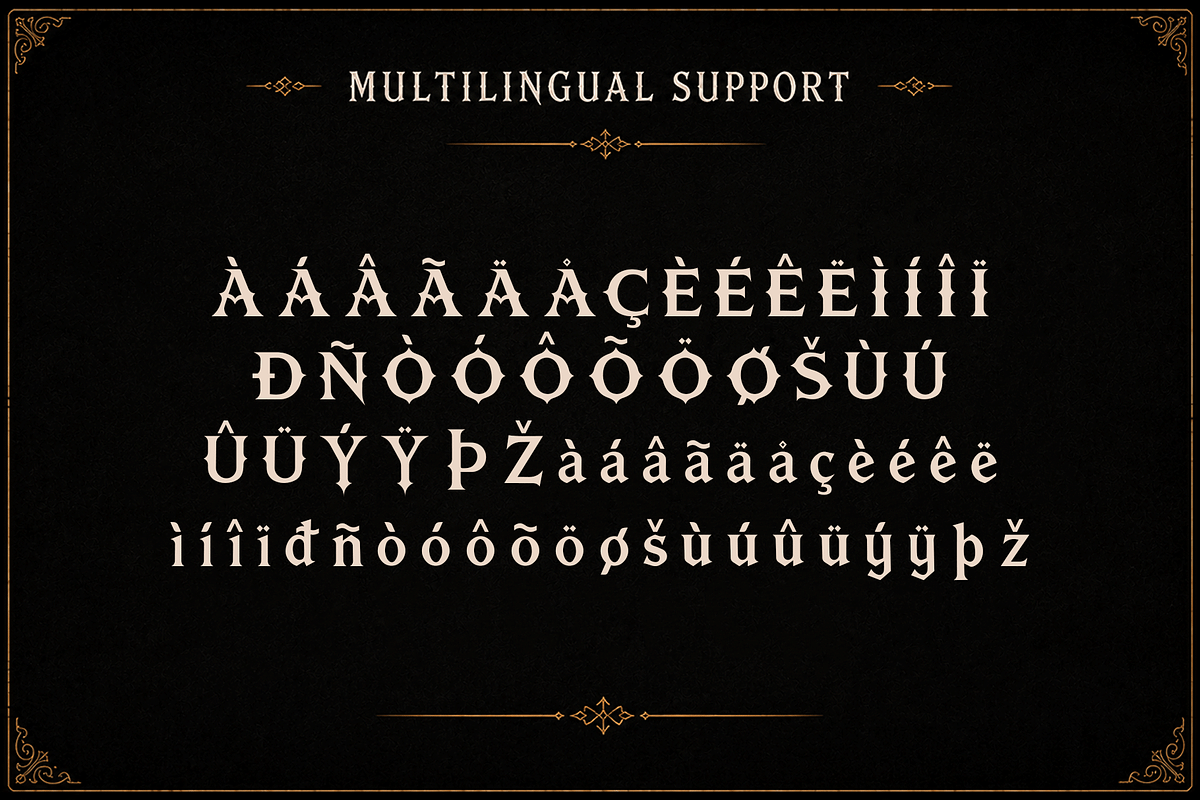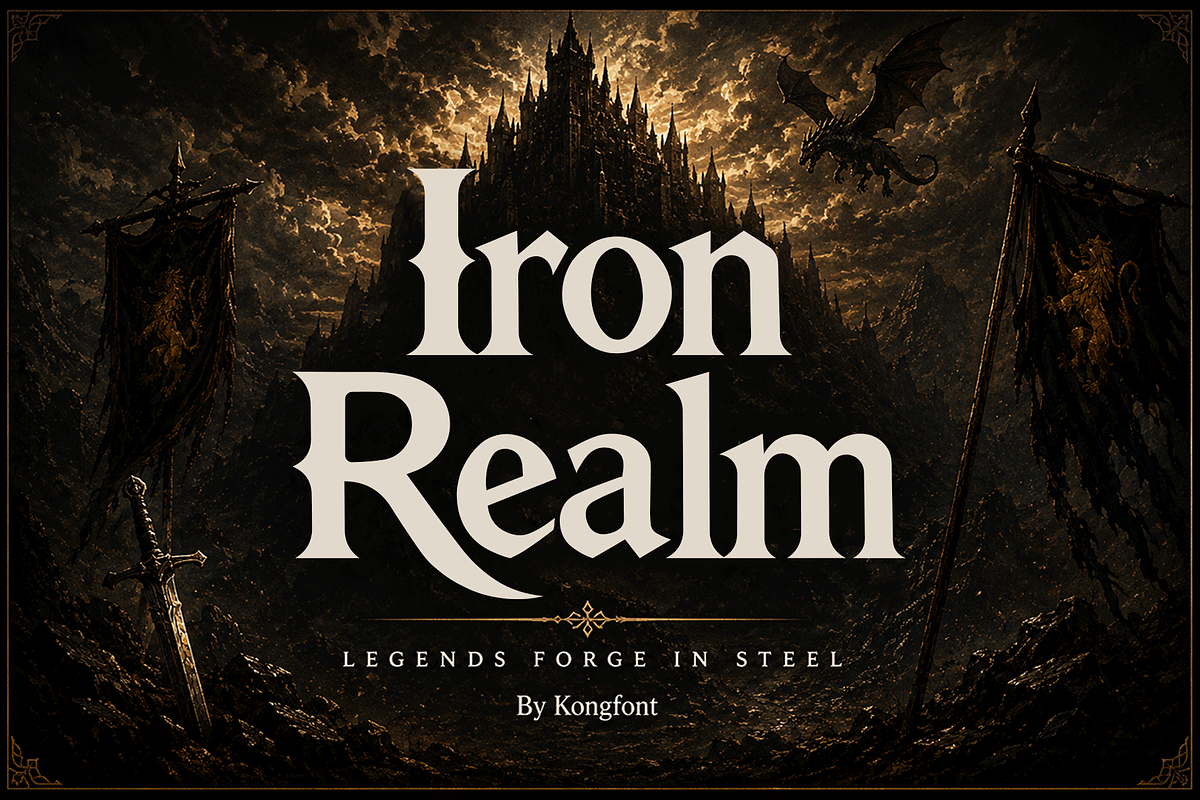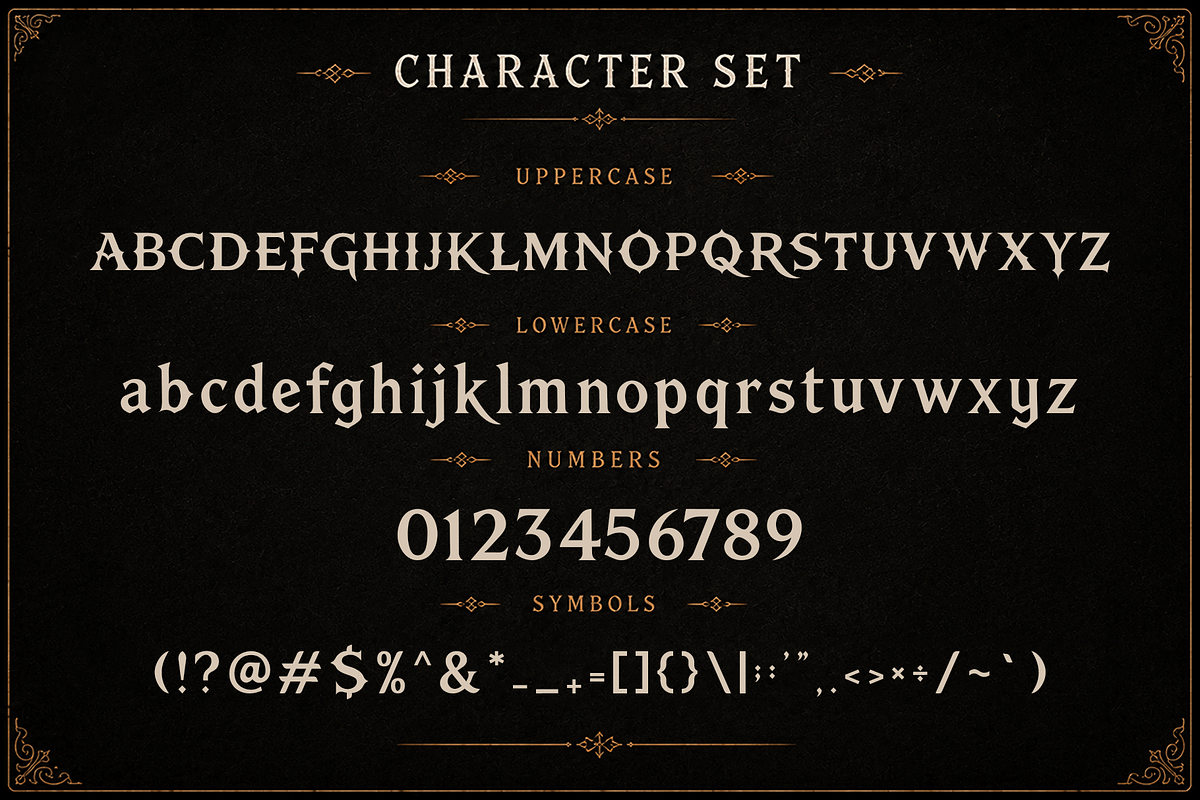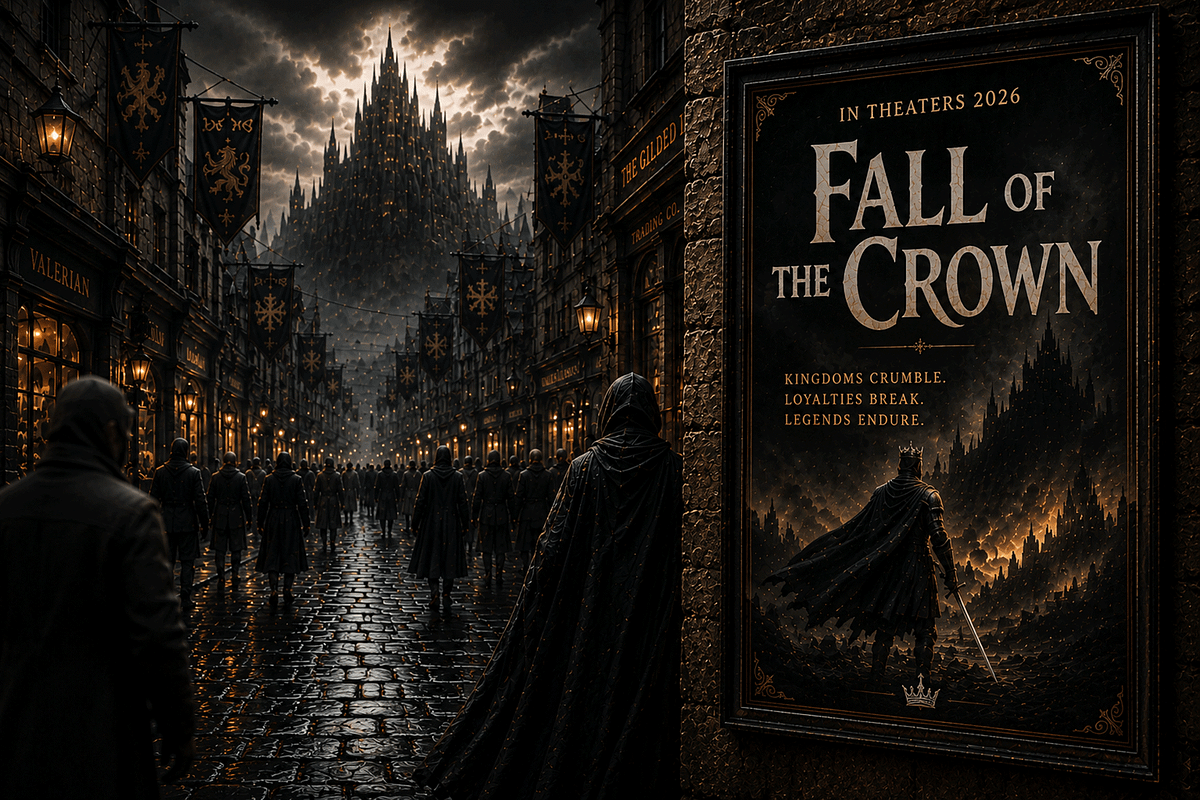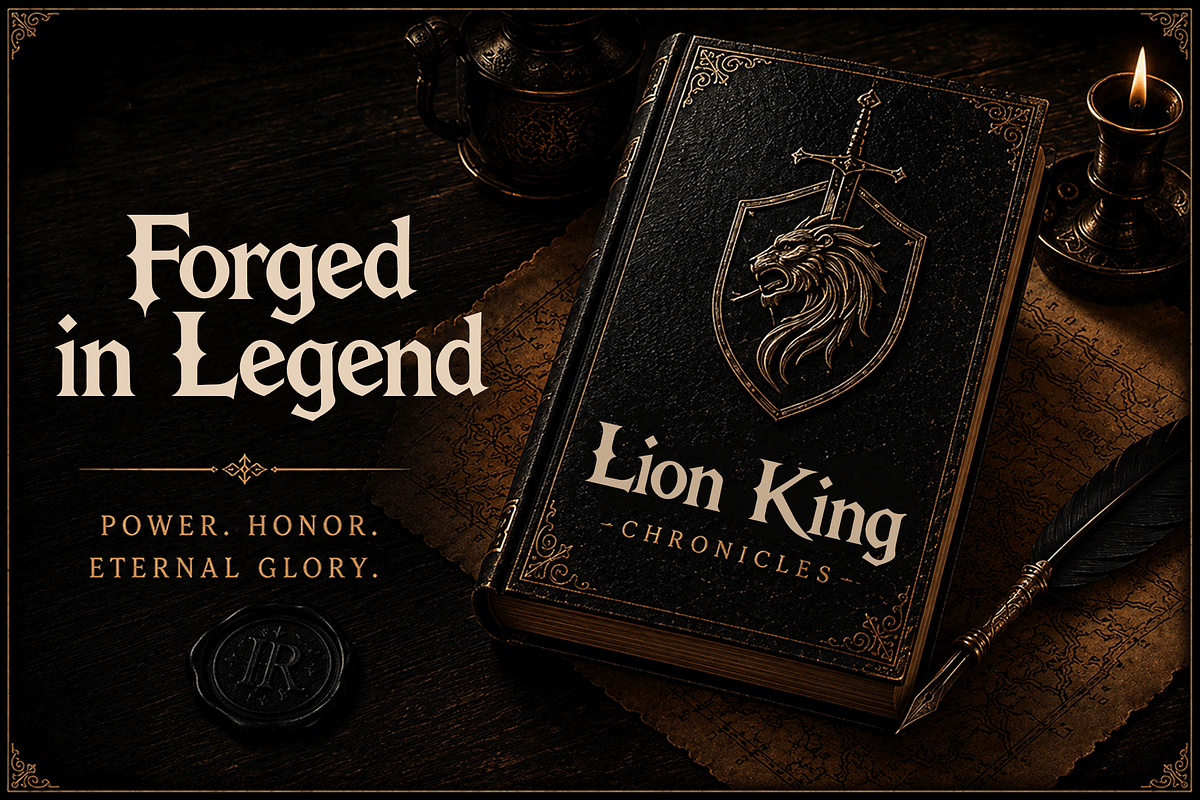
Iron Realm - Medieval Fantasy Font
Meet Iron Realm, a medieval fantasy display font forged for epic adventures, ancient kingdoms, and legendary storytelling. Inspired by towering castles, mythical dragons, enchanted realms, and heroic warriors, this typeface combines elegant medieval letterforms with bold fantasy aesthetics to create a timeless and immersive visual experience. Its refined serifs and powerful character shapes make every word feel worthy of an epic saga.
Expertly crafted for fantasy themed projects, Iron Realm is perfect for RPG games, tabletop adventures, video game titles, fantasy novels, book covers, movie posters, streaming graphics, YouTube thumbnails, logos, merchandise, apparel, board games, collectible cards, and medieval event branding. The font balances classic elegance with dramatic flair, making it ideal for both cinematic titles and premium branding.